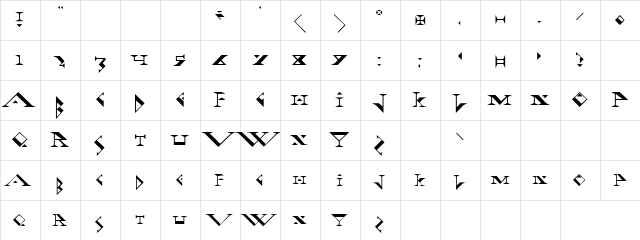
Diamond Dist Regular
Design Context for Diamond Dist Typeface
Diamond Dist is a composed and adaptable typeface that performs quietly and consistently across a wide range of design contexts.